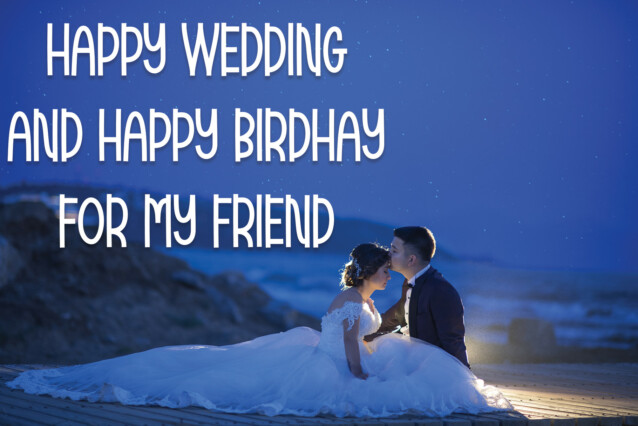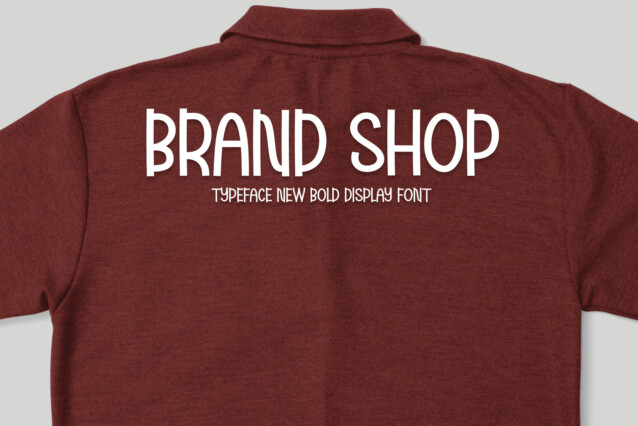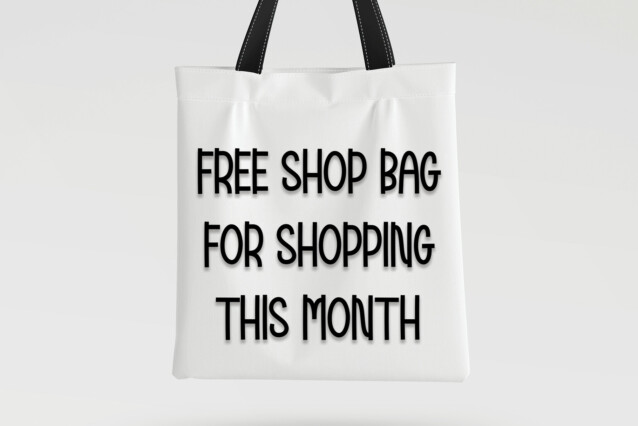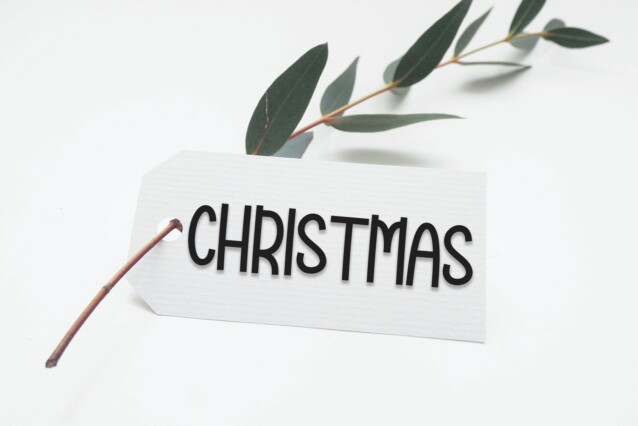
Christmas Greeting Display Font
Christmas Greeting‘s latest style letters are perfect for wall displays, wedding invitations, social media post logos, advertisements, product packaging, product designs, labels, photography, watermarks, invitations, stationery, and any project that requires a modern taste.